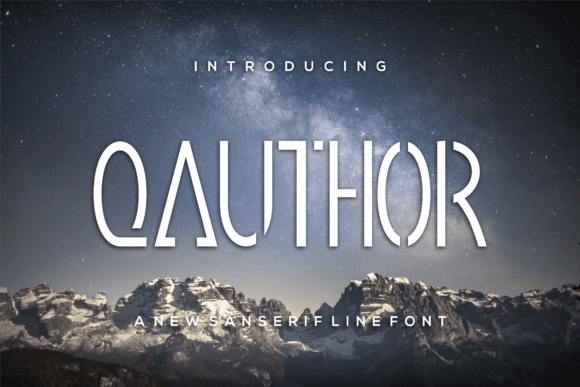
Qauthor Font: The Perfect Sans Serif Font for Your Business Card
In a world saturated with digital noise, your business card is your tangible chance to make a lasting impression. Qauthor Font, a sleek and sophisticated sans serif font, is the key to crafting a business card that speaks volumes about your professionalism and attention to detail.
With its clean lines and crisp edges, Qauthor Font exudes an air of authority and trustworthiness. It's the perfect choice for businesses looking to convey a sense of stability and reliability. Whether you're a seasoned entrepreneur or a creative freelancer, Qauthor Font will elevate your business card to new heights of sophistication.
But Qauthor Font is more than just a pretty face. It's also incredibly versatile, lending itself to a wide range of creative applications. From eye-catching logos and branding materials to captivating presentations and social media graphics, Qauthor Font is the perfect font for businesses of all sizes and industries.
With Qauthor Font, you can:
* Craft a business card that leaves a lasting impression
* Convey a sense of professionalism and trustworthiness
* Stand out from the competition with a unique and memorable font
* Create eye-catching logos and branding materials
* Design captivating presentations and social media graphics
* Express your creativity and make your mark in the business world